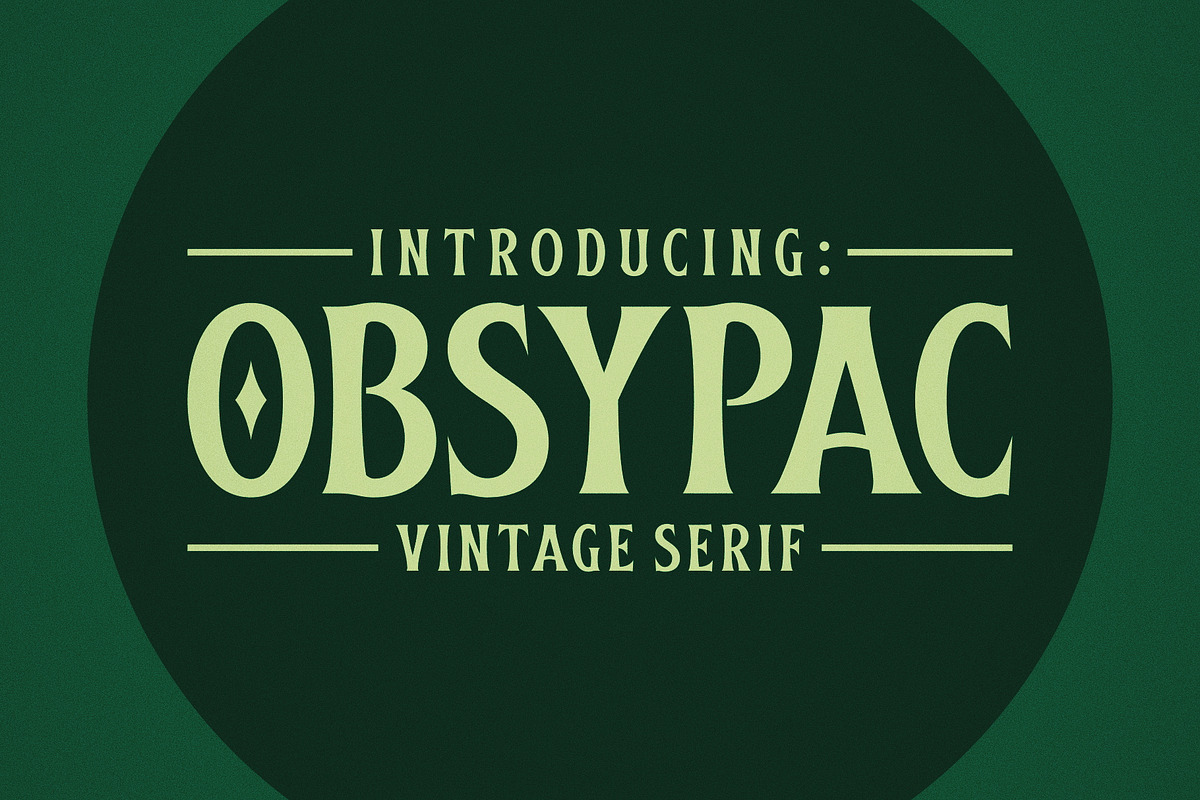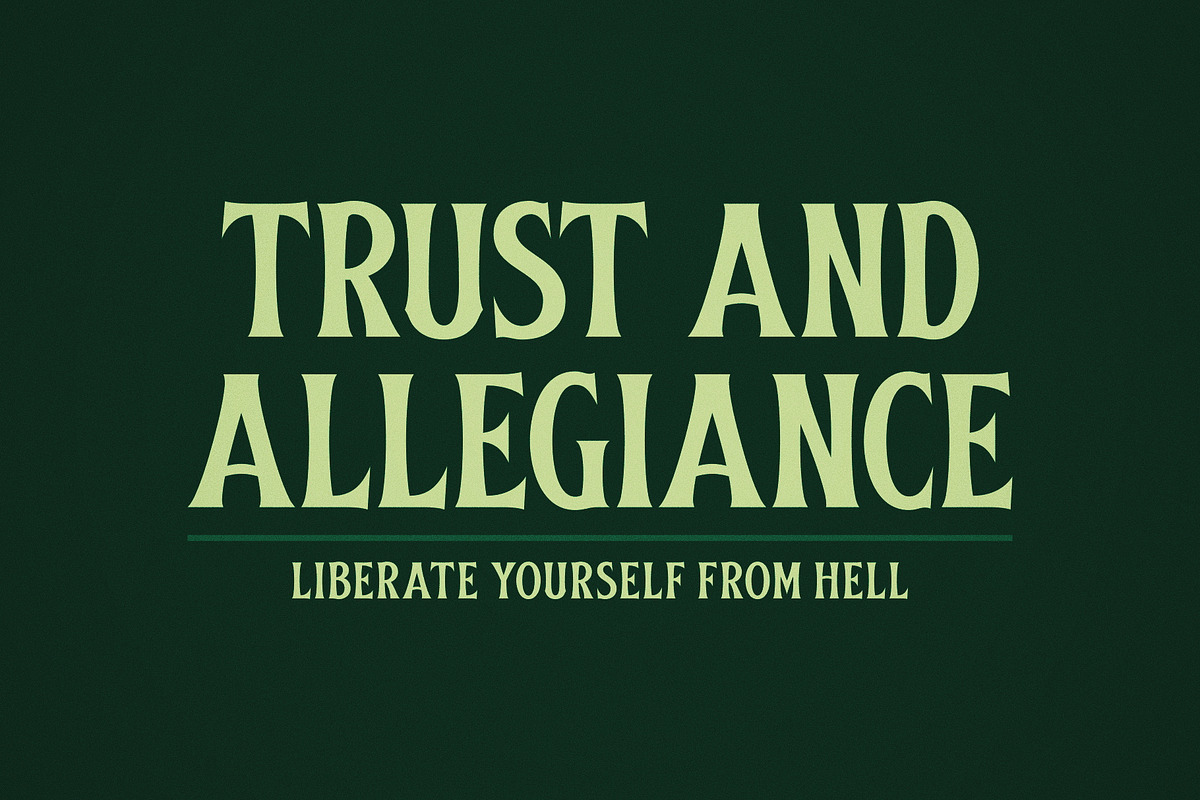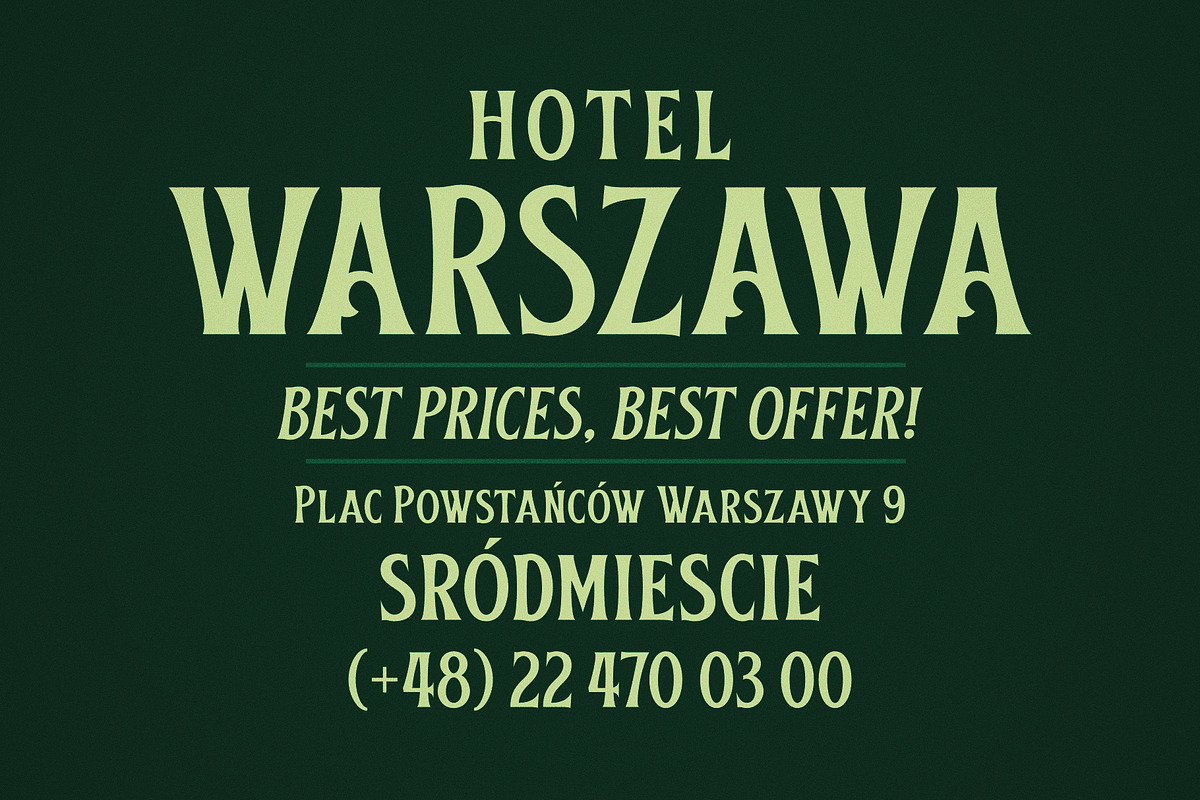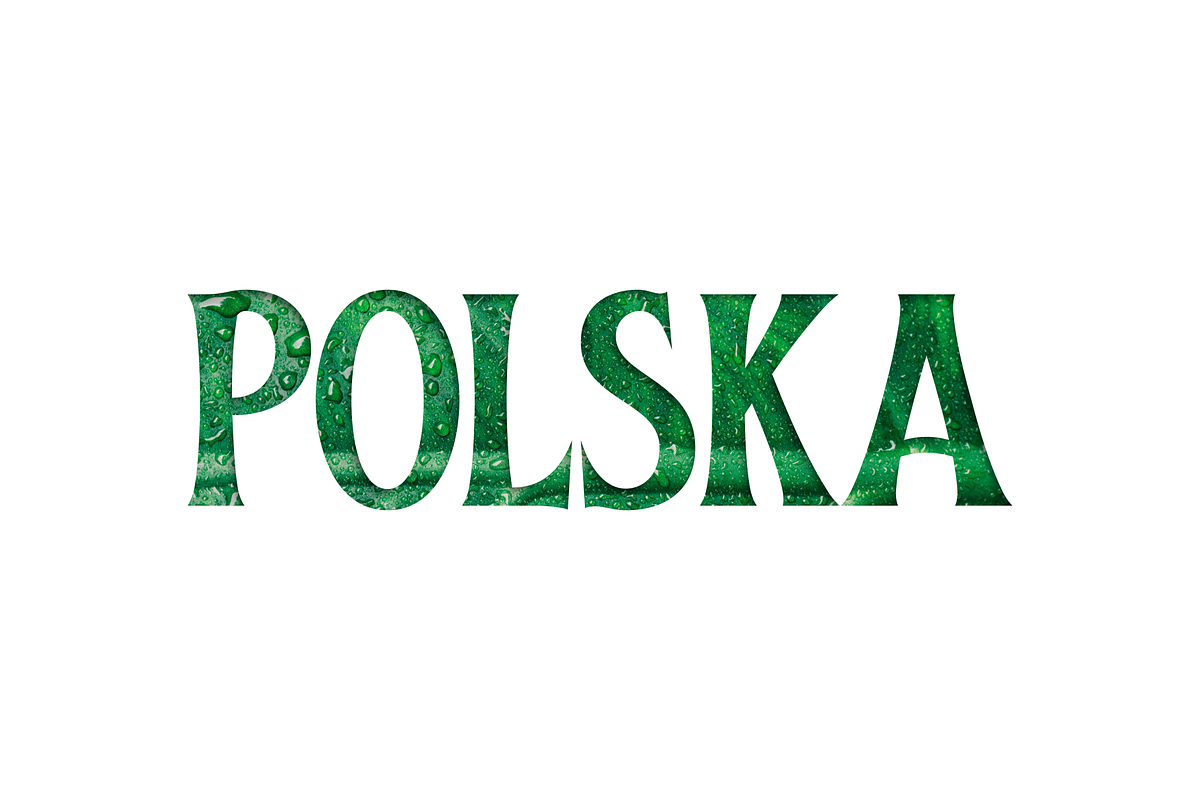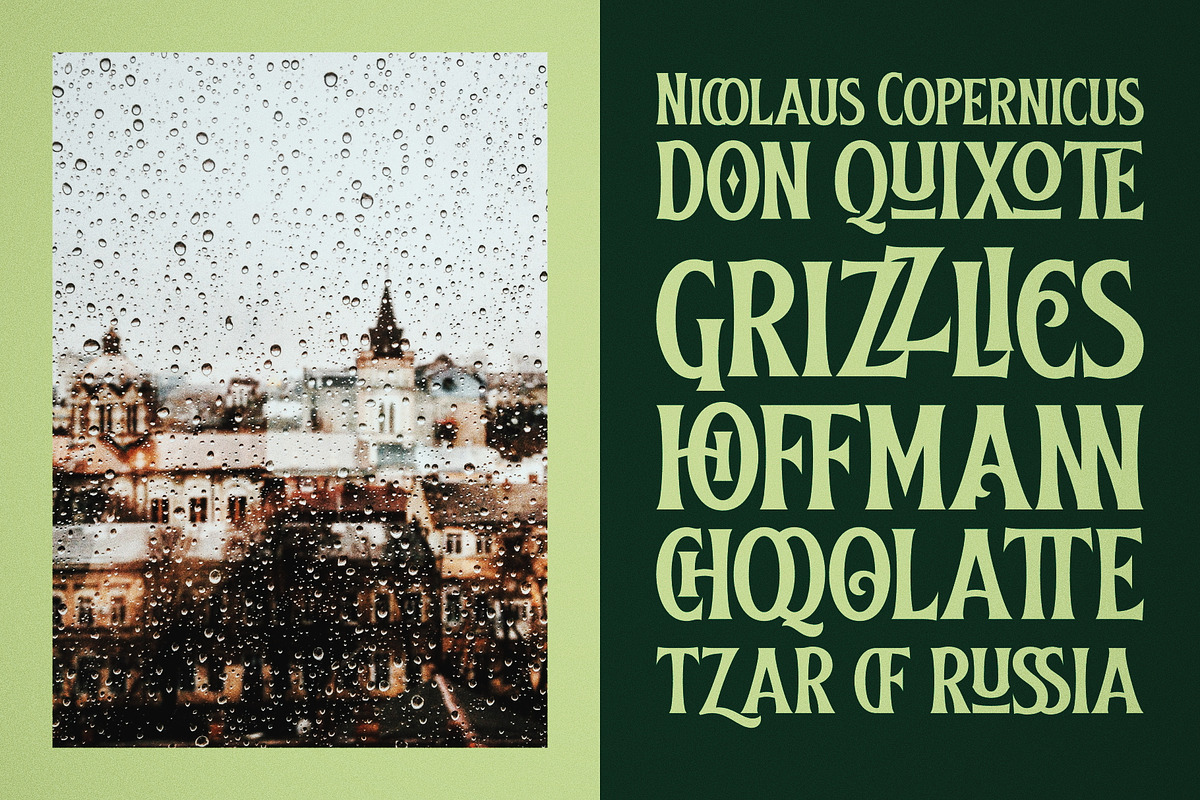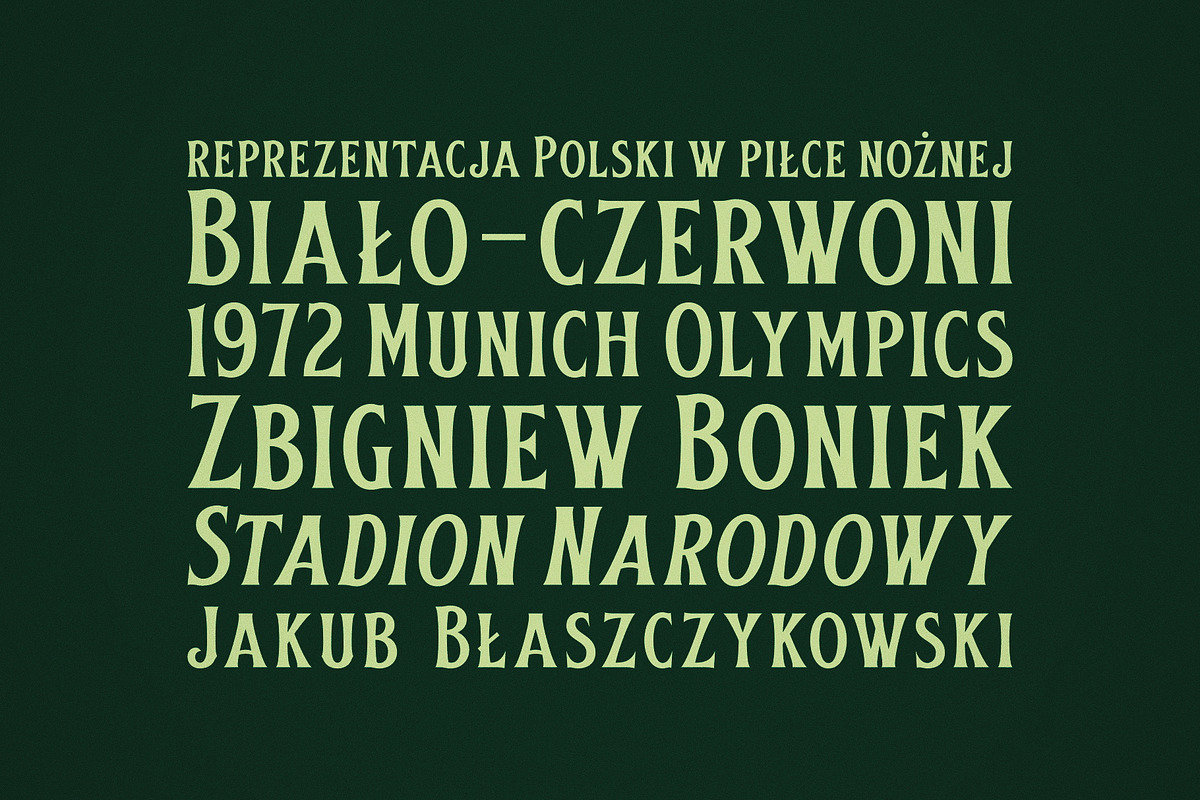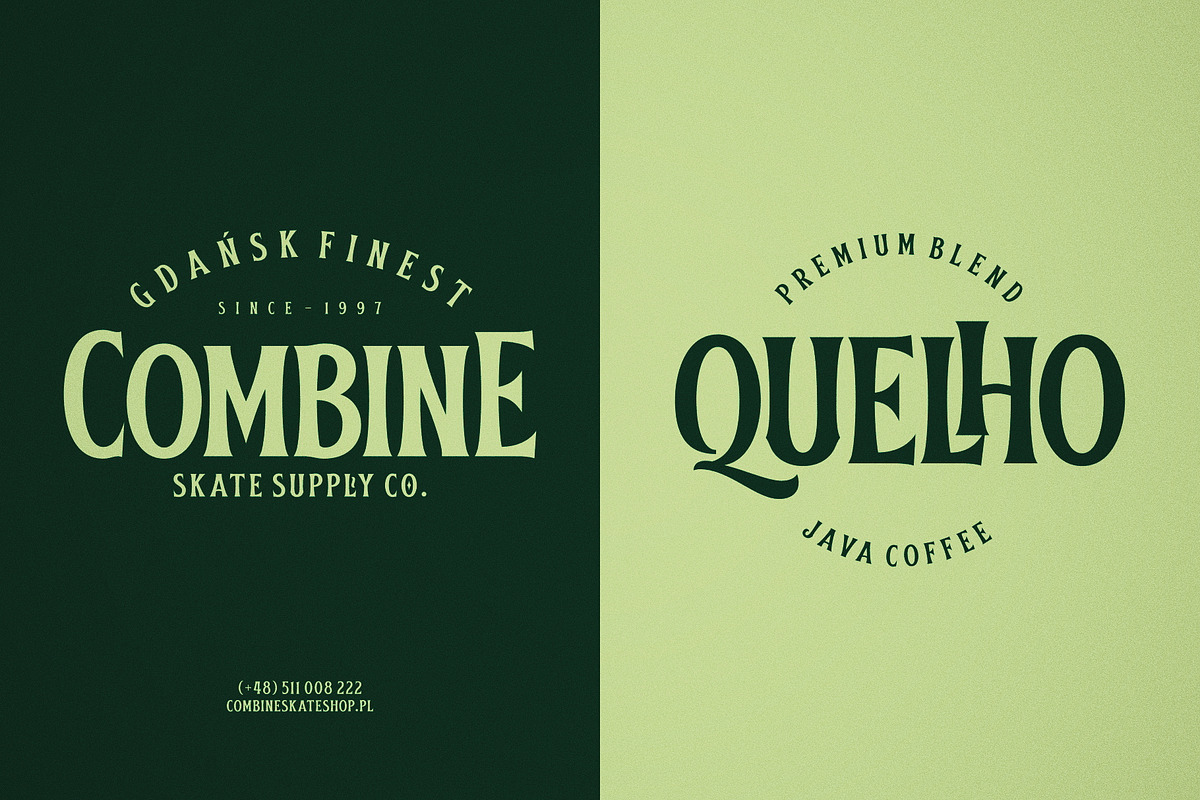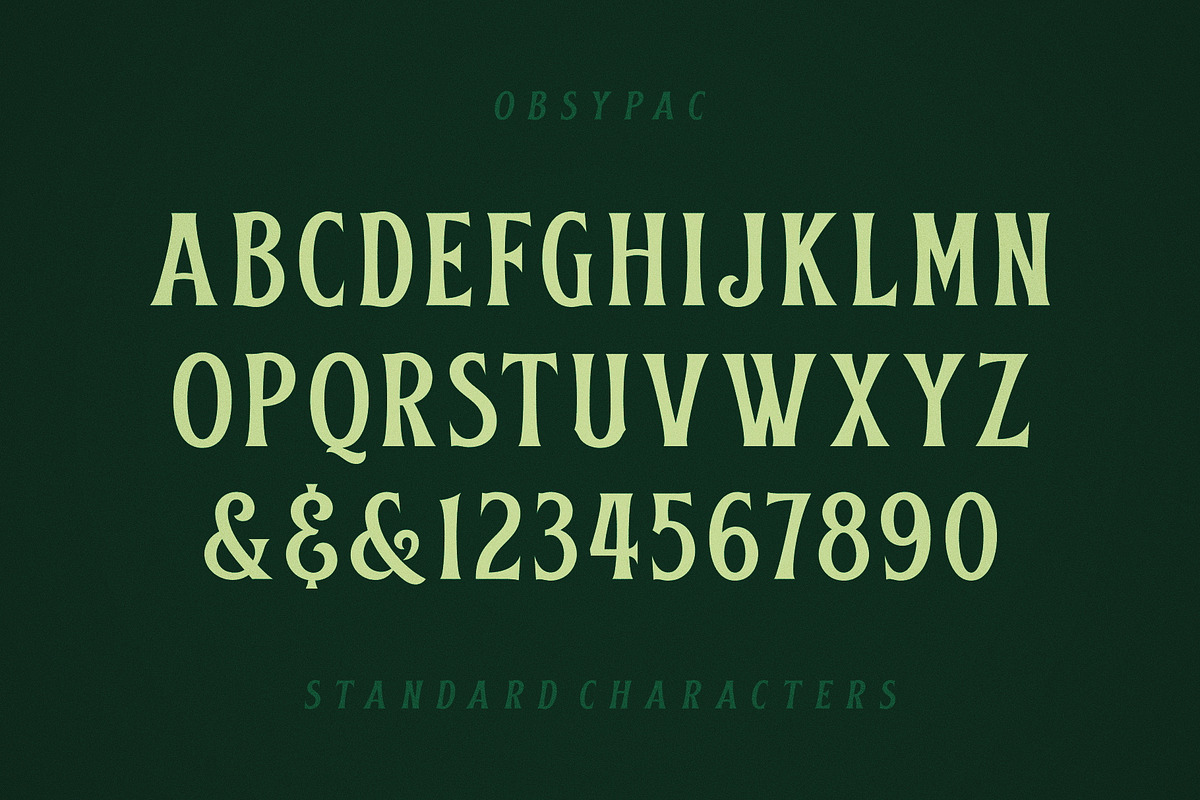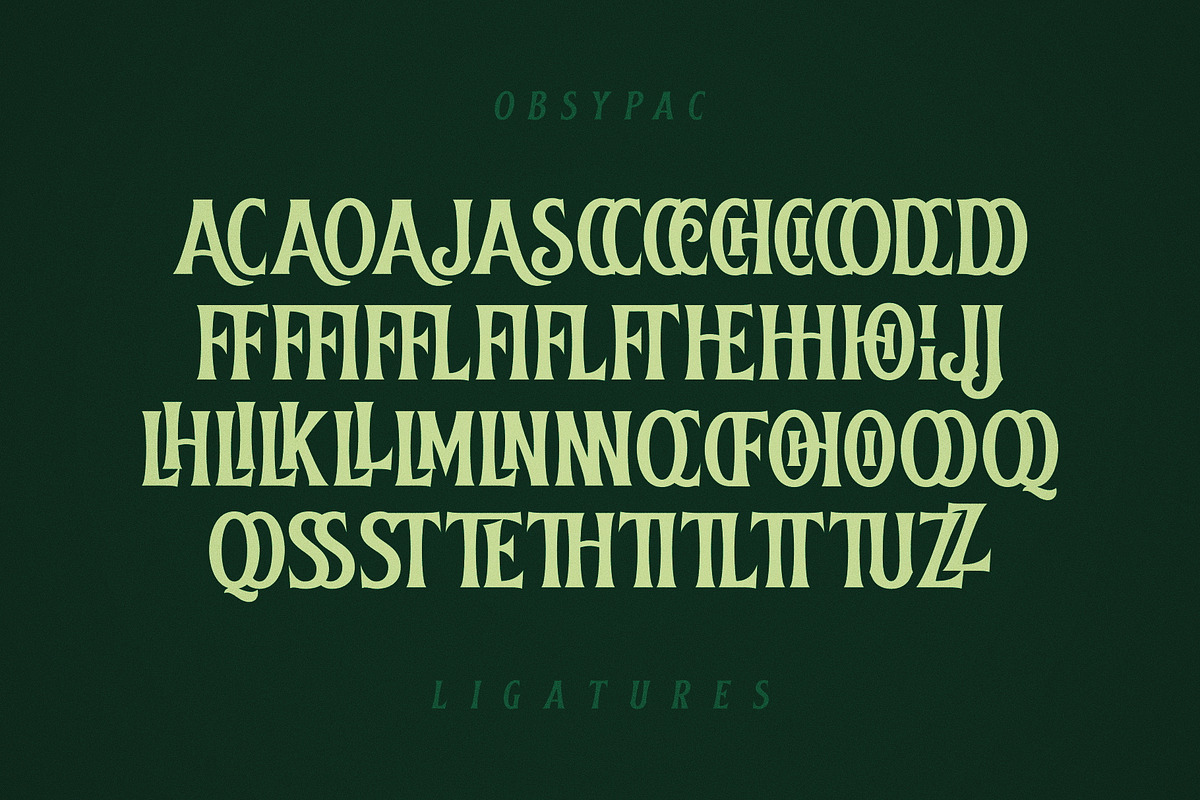
Obsypac | Vintage Serif
Introducing Obsypac, our latest vintage serif. Inspired by the old lettering/signpainting, refined to made it relevant with this modern era. This all-caps font will give you strong and clean look on your design, make it works perfectly as a headlines, logos/logotypes, labels and packagings, t-shirt designs, etc. If you're a fan of classic typography, make sure you add this font to your design toolbox.
- Standard characters, numerals, and punctuations (OpenType Standard encoding),
- Multilingual character supports (Afrikaans, Albanian, Catalan, Croatian, Czech, Danish, Dutch, English, Estonian, Finnish, French, German, Hungarian, Icelandic, Italian, Lithuanian, Maltese, Norwegian, Polish, Portuguese, Slovenian, Spanish, Swedish, Turkish, Zulu),
- OpenType features such as alternate characters, stylistic sets, ligatures, etc,
- Two styles: Regular, and Italic,